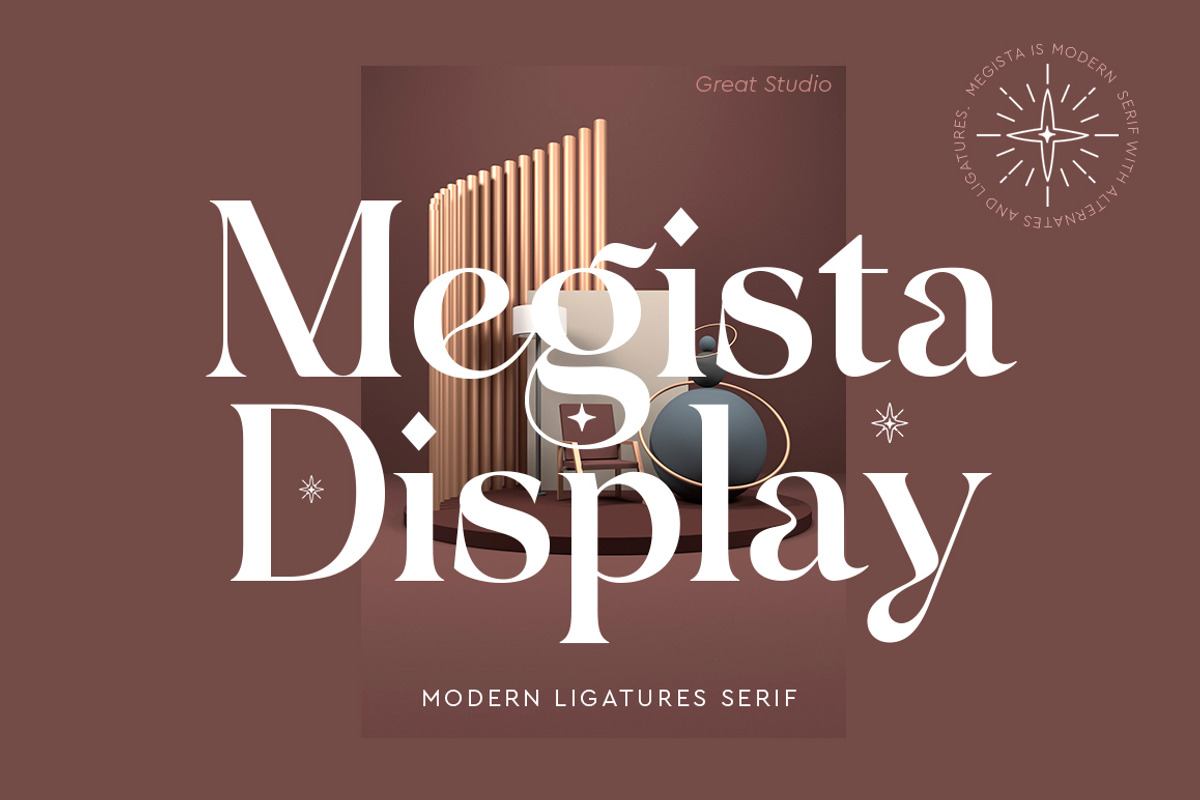
Please note that you must purchase this font for commercial use. You can download Megista Display Font for free, strictly for personal testing purposes only. Megista is a bold and elegant display font designed to make a statement with its strong, geometric shapes and stylish proportions. With its unique design and high contrast, Megista Display Font Free Download is perfect for luxury branding, editorial layouts, posters, headlines, and modern logo designs.
Its sleek and sophisticated appearance makes it ideal for high-end fashion, tech, and upscale product packaging. The font includes uppercase letters, numerals, punctuation, and multilingual support, ensuring versatility for a variety of design applications.
Whether you're working on a premium brand identity or creating impactful marketing materials, Megista brings style, strength, and elegance to your typography.